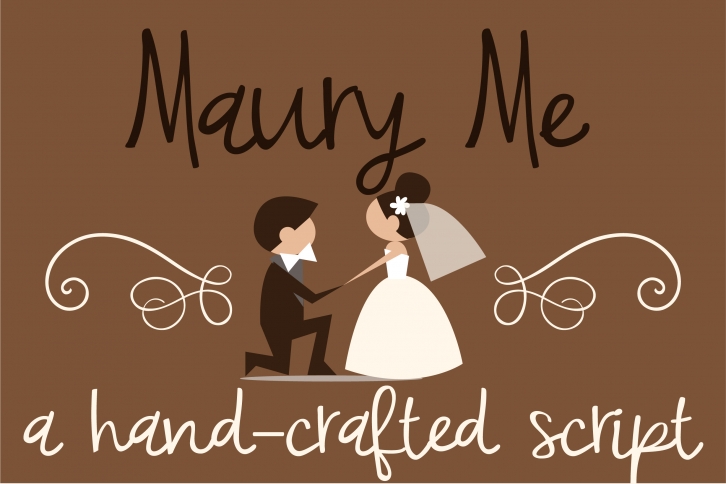
Maury Me is a trendy and unique font with an authentic style. It was designed by Illustration Ink and it's a great choice for creative people who need such a font. It was released on March 26, 2019 and the file size is 10.98 MB. Maury Me will add an organic vibe to any design idea!